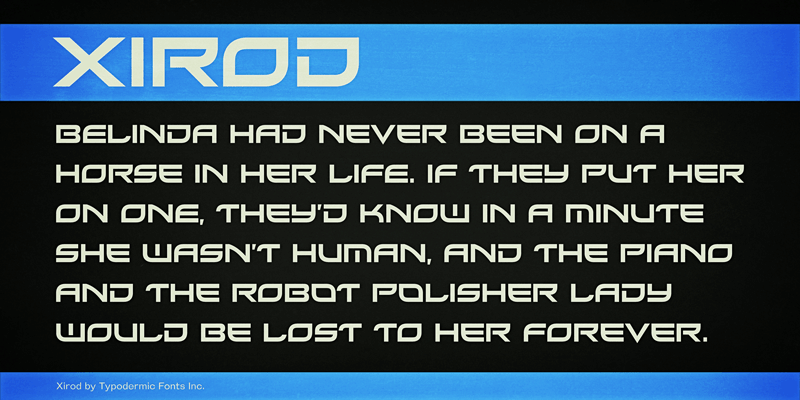
Font name: | Xirod |
Xirod is a square, sci-fi techno headline font. In OpenType savvy applications, letters change in order to harmonize with adjacent letters. Strange alternate letters can be accessed using the OpenType "Stylistic Alternates" feature. This font includes a license that allows free commercial use: sometimes referred to as a desktop license. This allows you to install the font on a computer and use it to create posters, web graphics, game graphics, t-shirts, videos, signs, logos and more. Read the license agreement for details. If you'd like to embed this font in an app, ebook, on the web or anything that's not covered by the desktop license agreement, visit the link below. You'll find distributors who offer different types of licenses or you can contact me for help. http://typodermicfonts.com/xirod/ |